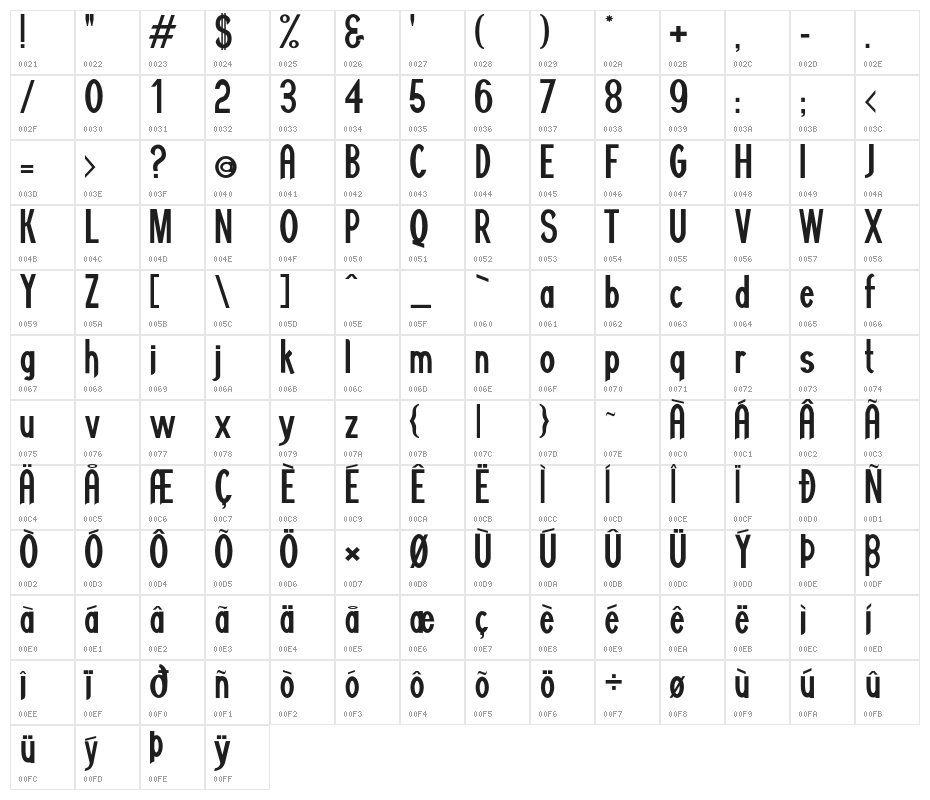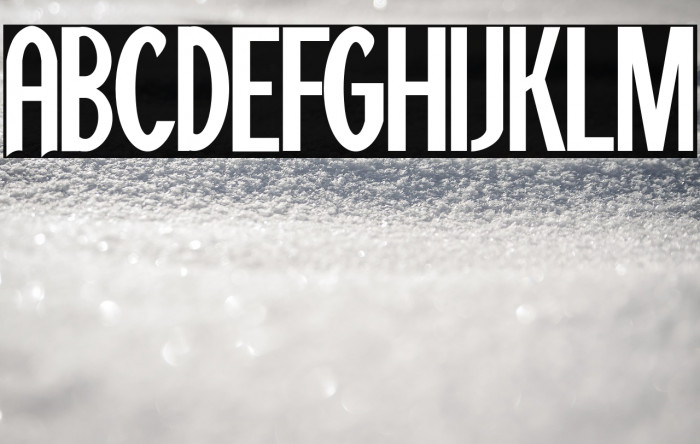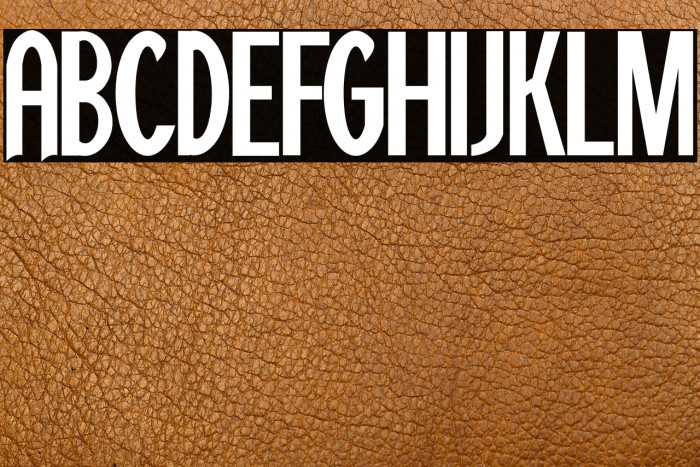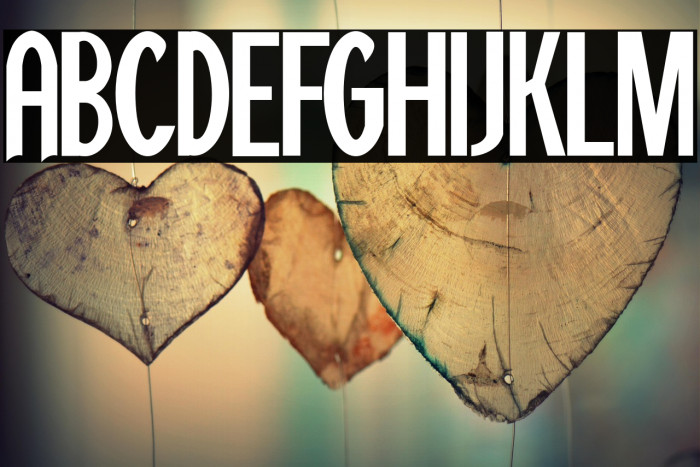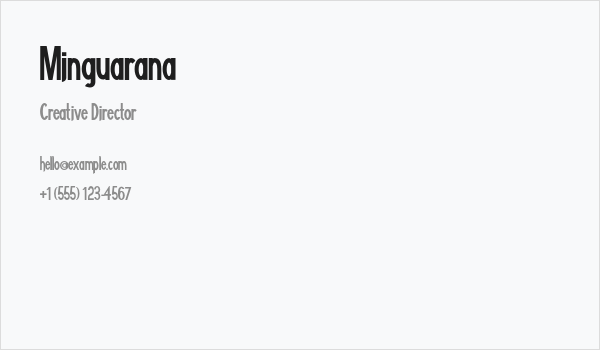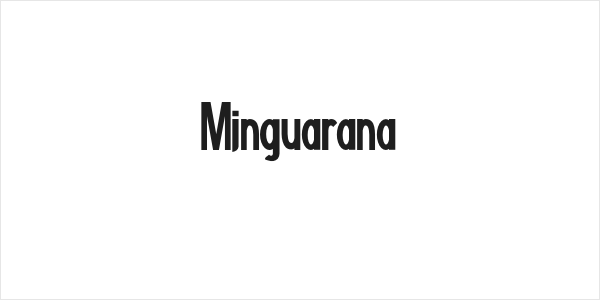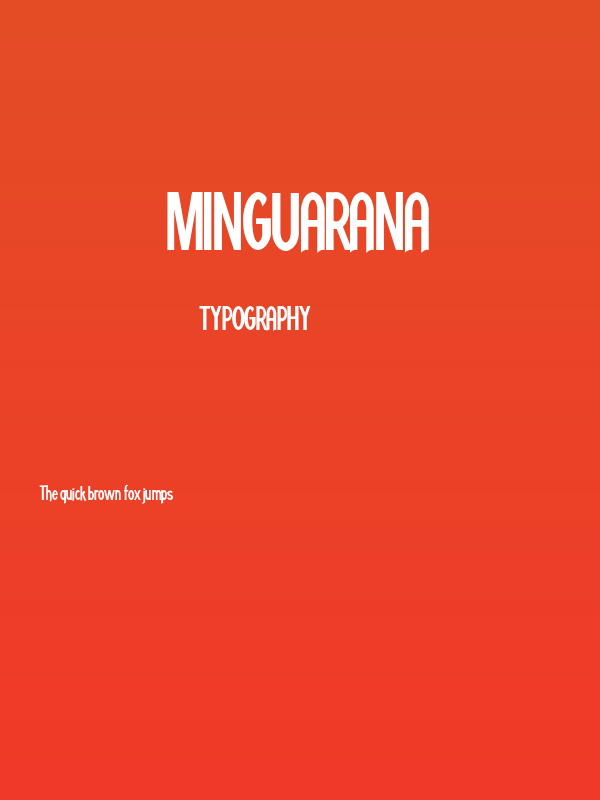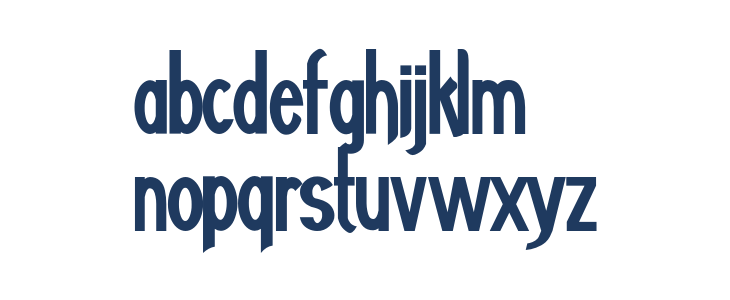
Minguarana Font
Minguarana Description
This font features bold, geometric letterforms with a modern and clean aesthetic. The uppercase letters are tall and narrow, creating a strong vertical emphasis, while the lowercase letters maintain a consistent width, offering a harmonious balance. The numerals are equally bold, ensuring readability and impact. Special characters are designed with the same boldness, integrating seamlessly with the overall style. The font's high contrast and tight character spacing make it ideal for attention-grabbing headlines and display purposes.